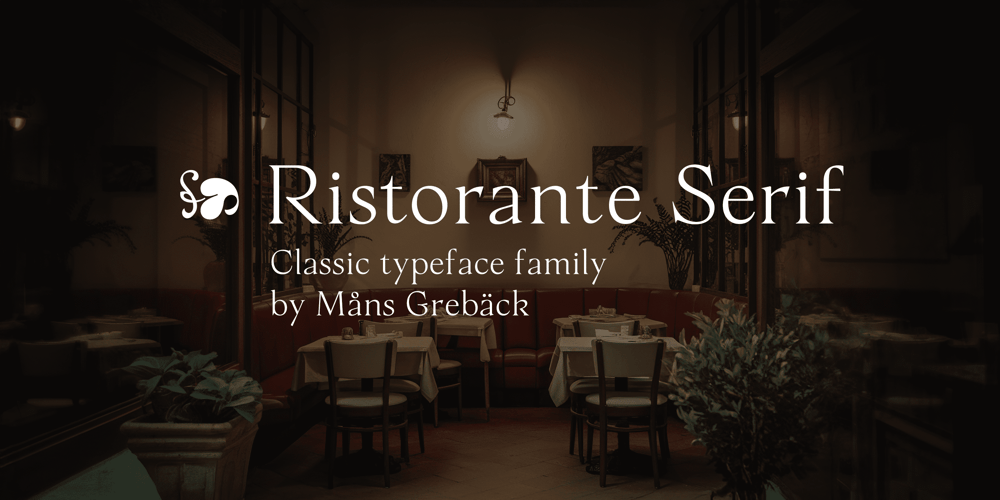
Ristorante Serif
Ristorante Serif font
Ristorante Serif Font Family was designed by Måns Grebäck and published by Mans Greback. Ristorante Serif contains 4 styles and family package options. Ristorante Serif is a refined typeface, drawing inspiration from the elegant traditions of Italian design. Its thin, clean lines and subtle serifs evoke a classic sophistication, perfect for high-end branding or any setting where a touch of class is needed. The fine detailing of each letterform adds a sense of luxury, while its restrained simplicity ensures it remains versatile and timeless.The font carries a traditional yet modern feel, striking a balance between formality and approachable elegance. Whether used for a restaurant menu or luxury brand logo, Ristorante Serif lends a polished, classy aesthetic to any project.The font is built with advanced OpenType functionality and guaranteed top-notch quality, containing stylistic and contextual alternates, ligatures and more automatic and manual features; all to give you full control and customizability. It has extensive lingual support, covering all Latin-based languages, from North Europa to South Africa, from America to South-East Asia. It contains all characters and symbols you’ll ever need, including all punctuation and numbers. Designed by Mans Greback, this font is a testament to fine craftsmanship, combining classic serif traditions with a contemporary touch.